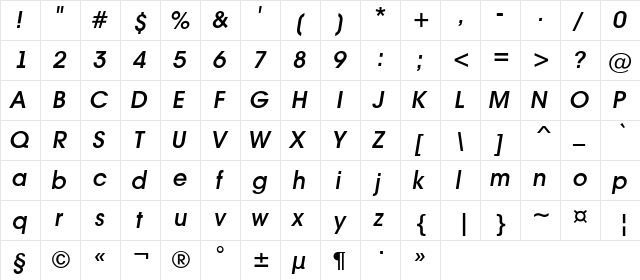
a_AvanteLt DemiBoldItalic
Design Context for a_AvanteLt Typeface
a_AvanteLt offers clean, dependable letterforms without strong stylistic allegiance, making it a practical choice for designers who need flexibility. Its italic angle brings a sense of urgency and motion to the letterforms. The heavy weight commands attention and anchors typographic hierarchies.
Pro Tip: Try a_AvanteLt for annotation and caption copy alongside an upright companion — the contrast in angle creates a dynamic but ordered typographic system.